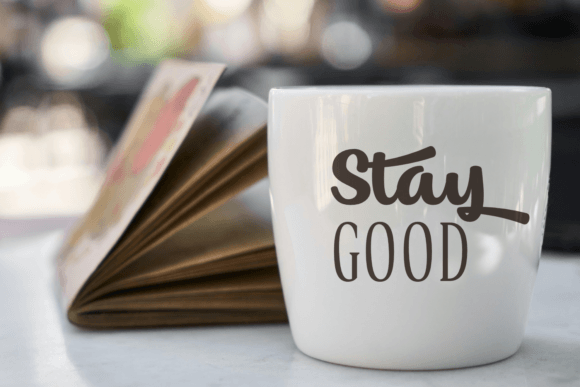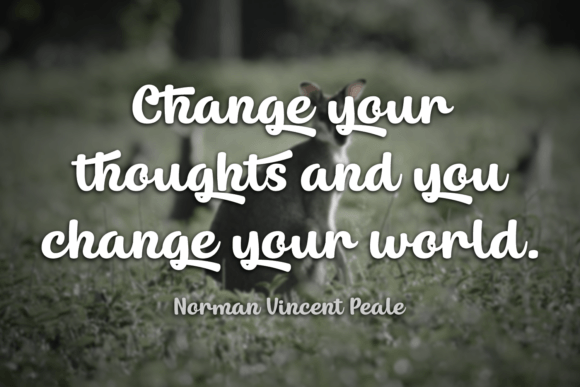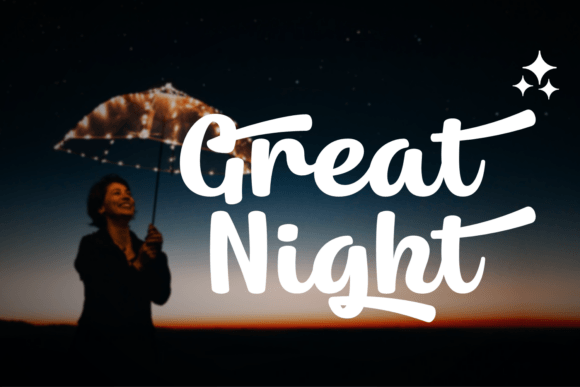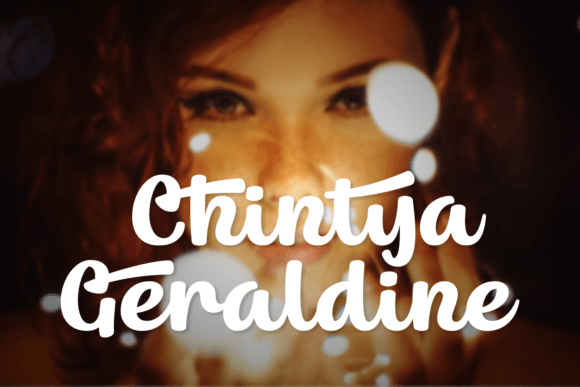
Introducing Galya Font: Elevate Your Designs with Elegance and Playfulness
In the world of typography, a good font can make all the difference in the success of a design project. Whether you’re a seasoned designer or a crafty DIY enthusiast, finding the right font can be a daunting task. That’s where Galya Font comes in – a bold script font that combines modern style with a touch of playfulness, perfect for creating stunning invitations, logos, and creative projects.
What is Galya Font?
Galya Font is a beautifully crafted script font that boasts elegant, flowing letters. Its unique design blends modern sophistication with a hint of whimsy, making it an excellent choice for designers and crafters looking to add a personal touch to their work. The font’s bold and eye-catching style ensures that your text stands out, while its readability makes it perfect for a wide range of applications.
Key Features of Galya Font
- Elegant and Flowing Letters: Galya Font features beautifully designed letters with a smooth, flowing script that adds a touch of sophistication to any design.
- Modern Style with a Touch of Playfulness: The font’s modern design ensures that your work looks contemporary and fresh, while its playful undertones add a creative and whimsical feel.
- Easy to Read: Despite its bold and decorative style, Galya Font is surprisingly easy to read, making it perfect for use in a variety of contexts, from digital media to print materials.
- Perfect for Creative Projects: Whether you’re designing invitations, logos, or other creative projects, Galya Font is an excellent choice, providing a unique and eye-catching way to express yourself.
Uses for Galya Font
Galya Font’s versatility makes it suitable for a wide range of applications. Here are some ideas to get you started:
- Invitations: Use Galya Font to create stunning wedding invitations, birthday party invites, or any other special occasion.
- Logos: Add a touch of elegance and sophistication to your logo design with Galya Font.
- Social Media Graphics: Use Galya Font to create eye-catching social media graphics, such as quote graphics, promotions, or announcements.
- Branding Materials: Incorporate Galya Font into your branding materials, such as business cards, brochures, or letterheads.
- Crafting Projects: Galya Font is perfect for crafters who want to add a personal touch to their DIY projects, such as handmade cards, scrapbooking, or journaling.
Why Choose Galya Font?
With so many fonts available, why choose Galya Font? Here are a few reasons why Galya Font stands out:
- Unique Design: Galya Font’s unique blend of modern style and playfulness makes it a standout in the world of typography.
- High Readability: Unlike some decorative fonts, Galya Font is easy to read, making it perfect for use in a variety of contexts.
- Versatility: Galya Font’s versatility makes it suitable for a wide range of applications, from digital media to print materials.
Galya Font is a beautiful and versatile script font that is perfect for designers and crafters looking to add a touch of elegance and playfulness to their work. With its modern style, flowing letters, and high readability, Galya Font is an excellent choice for a wide range of applications, from invitations and logos to social media graphics and crafting projects. So why settle for a bland and generic font when you can elevate your designs with the unique and eye-catching Galya Font?
Whether you’re a seasoned designer or a crafty DIY enthusiast, Galya Font is sure to become a favorite in your font collection. So go ahead, get creative, and see how Galya Font can help you take your designs to the next level!